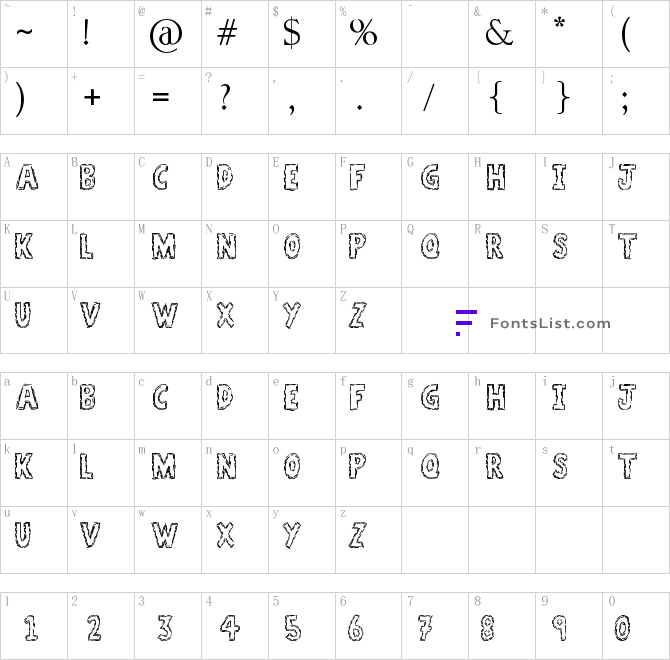
- Font Name:A Stitch Plus Nine
A-Stitch-Plus-Nine.ttf is a very beautiful artistic font, A-Stitch-Plus-Nine.ttf is widely used in the design and printing of various books and pictures,A-Stitch-Plus-Nine.ttf has a strong visual impact,A-Stitch-Plus-Nine.ttf is a commonly used font in newspapers, magazines and books, and is used in posters, e-commerce Poster design, store design, logo design, font design and other fields.A-Stitch-Plus-Nine.